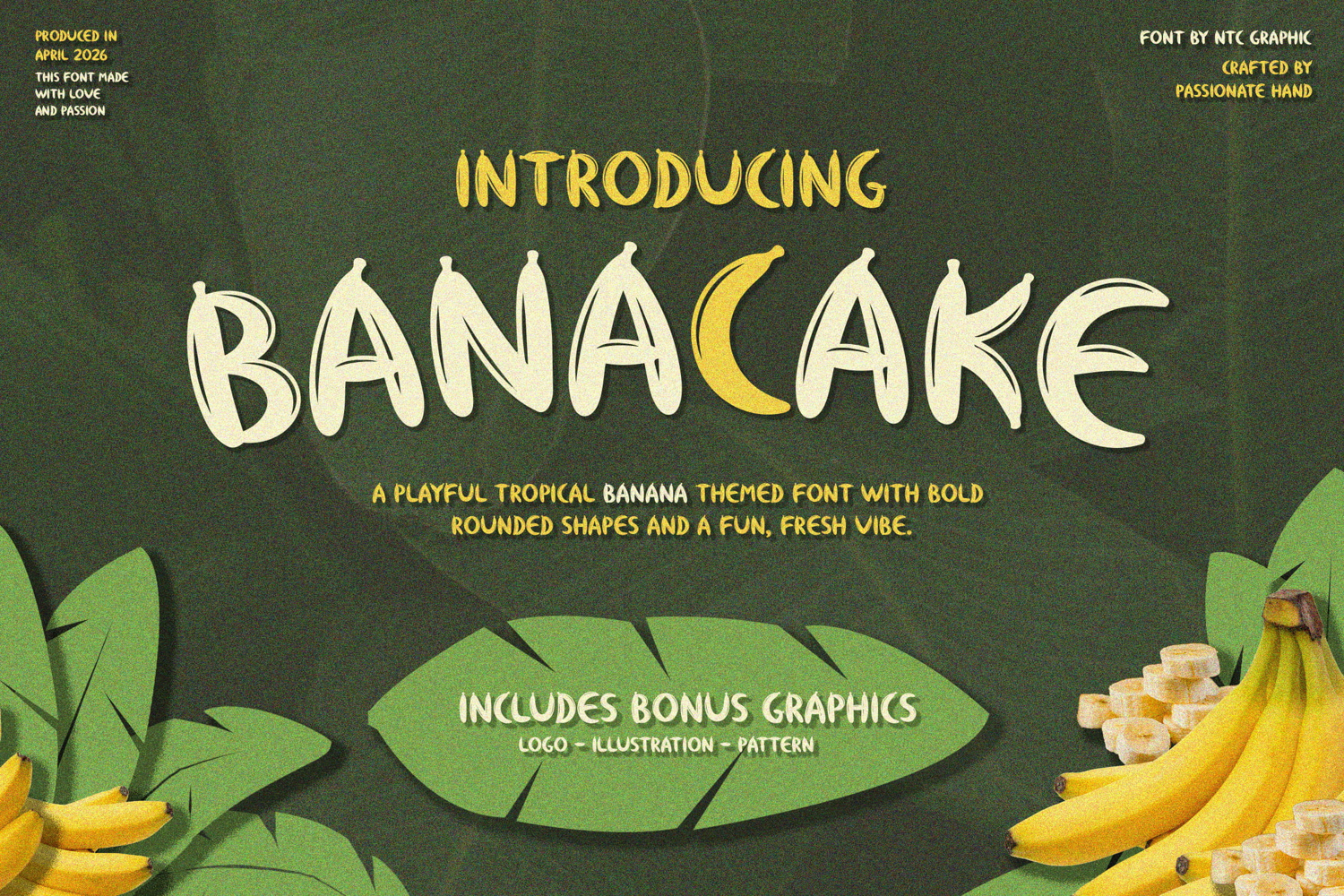
Banacake Playful Tropical Banana Font
Banacake
Banacake – Playful Tropical Banana Font + Bonus Graphics
Banacake is a playful tropical banana-themed font designed with bold, rounded shapes and a fun, fresh vibe. Inspired by the natural curves of bananas, this typeface brings a cheerful and eye-catching personality to your designs.
Perfect for branding, logo design, packaging, t-shirt design, kids products, food & beverage branding, tropical themes, summer designs, and playful typography projects, Banacake helps your work stand out with its unique and organic letterforms. This font is especially suitable for designers looking to create banana-themed visuals, fruity branding, snack packaging, or fun merchandise.